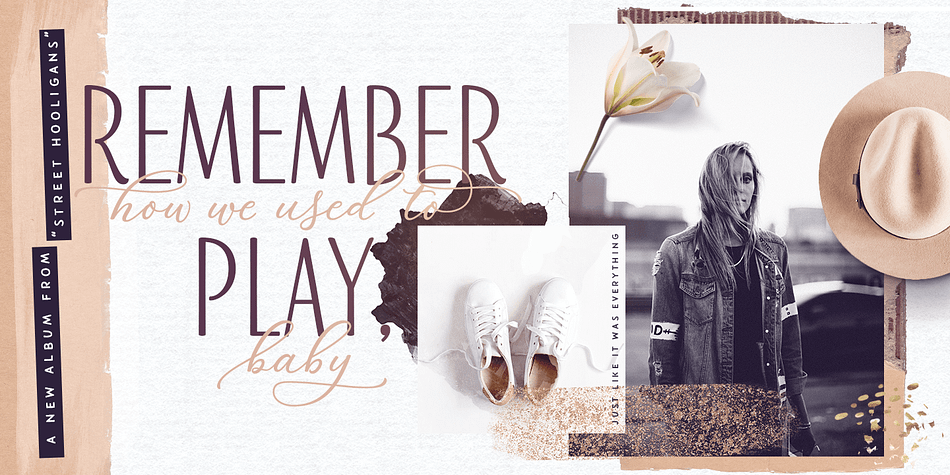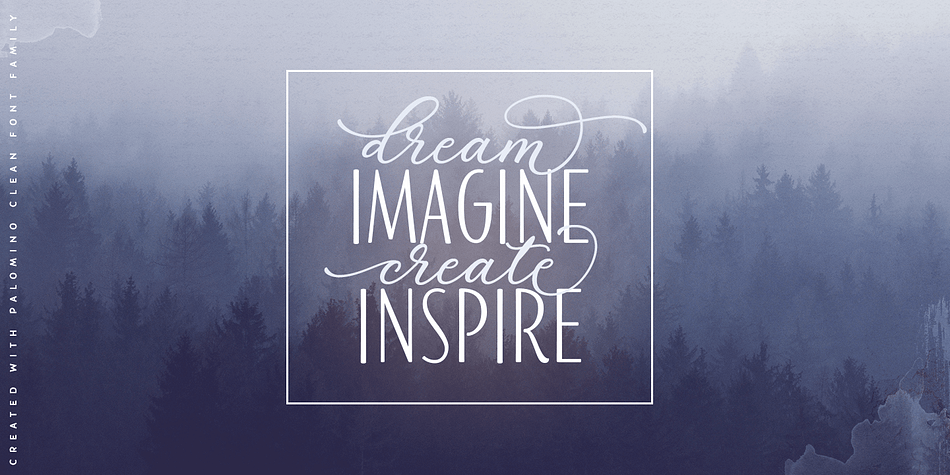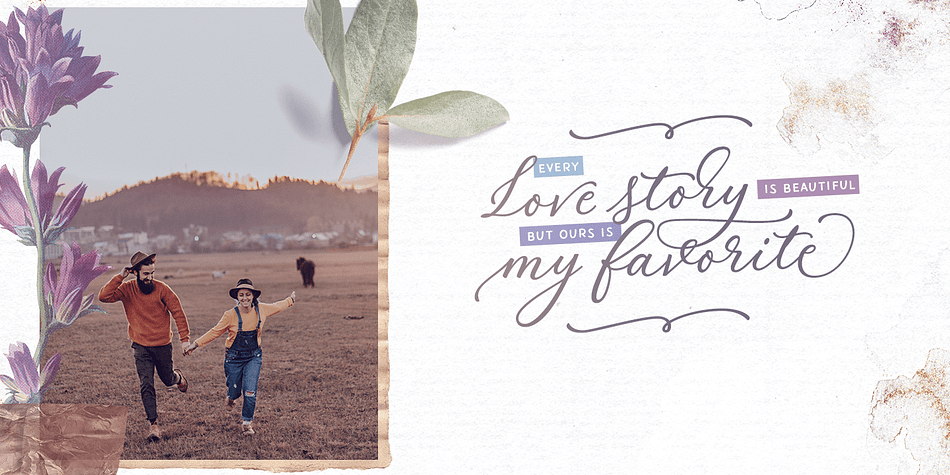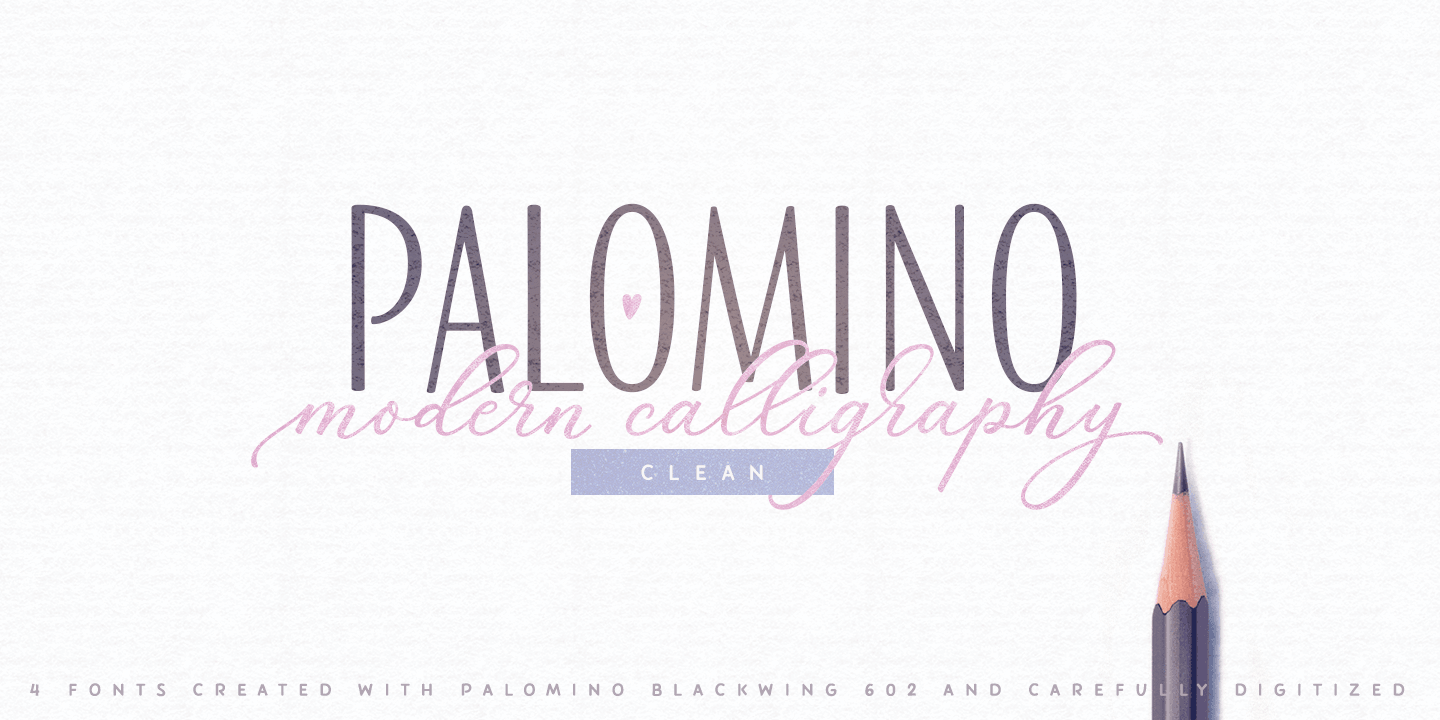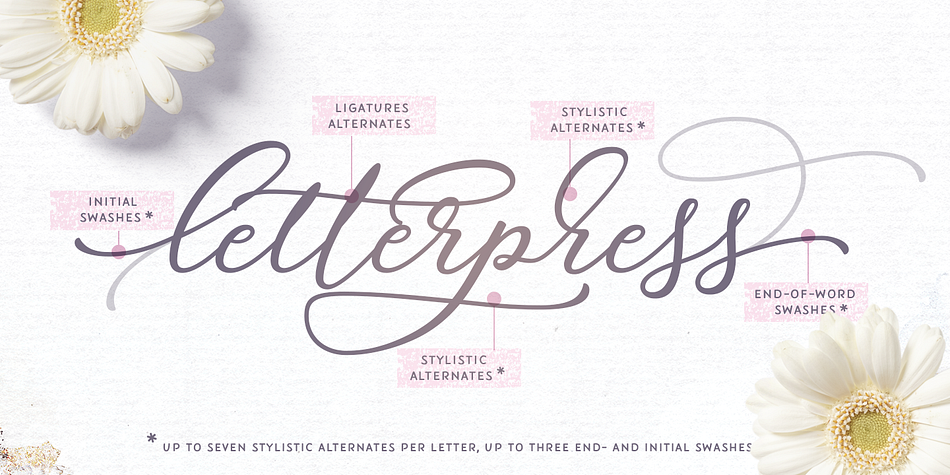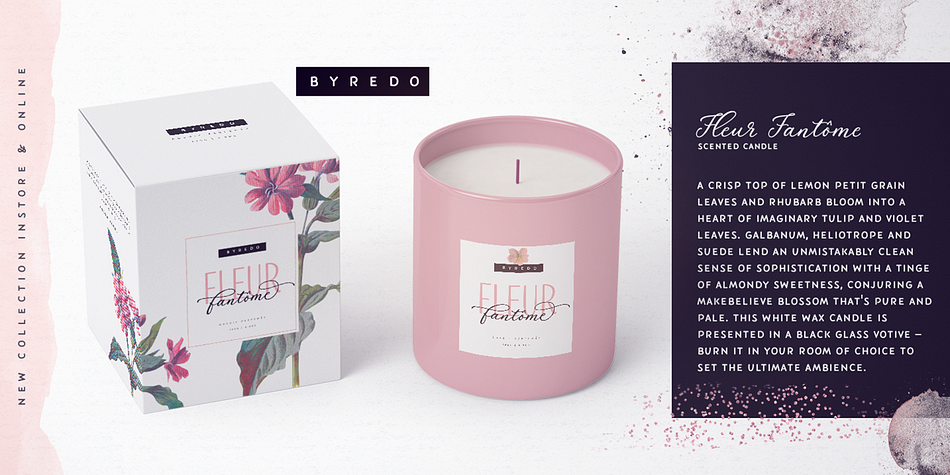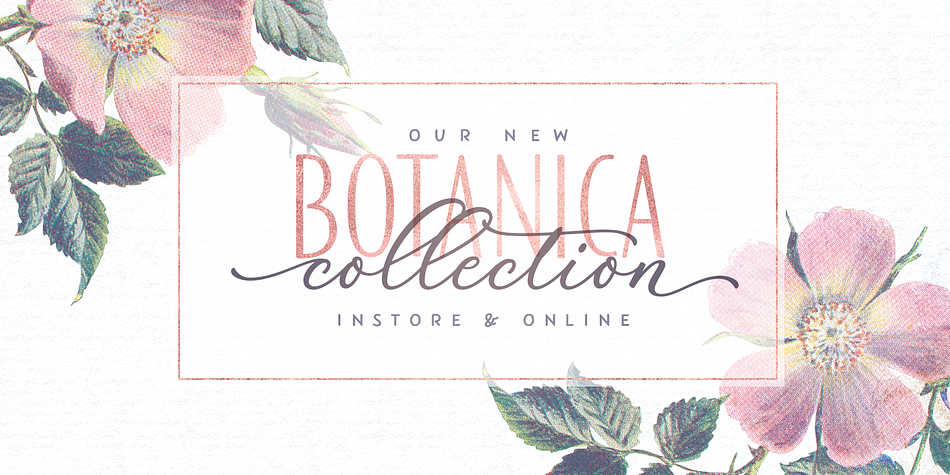
Designed by Elena Genova, Palomino Clean is a multiple classification font family. This typeface has four styles and was published by My Creative Land.
Please welcome Palomino Clean - a carefully digitized brother (or sister?) of Palomino calligraphy font family created using an amazing Palomino Blackwing 602 pencils. Palomino clean can be safely used on the web - no need to worry about file size! - as well as in all desktop applications.
All features are identical to Palomino Original - the script font is loaded with initial, medial and terminal alternates and swashes. Along with a help of three other fonts - condensed sans, simple sans and design elements font - you’ll be able to create stunning designs with a click of a mouse.
This versatile font family will work perfectly for fashion, e-commerce brands, wedding boutiques, photography, quotes design and a lot more. It has extensive language support and fully unicode mapped.
Styles | Display Sans, Hand Display, Script, Dingbat |
Designer | Elena Genova |